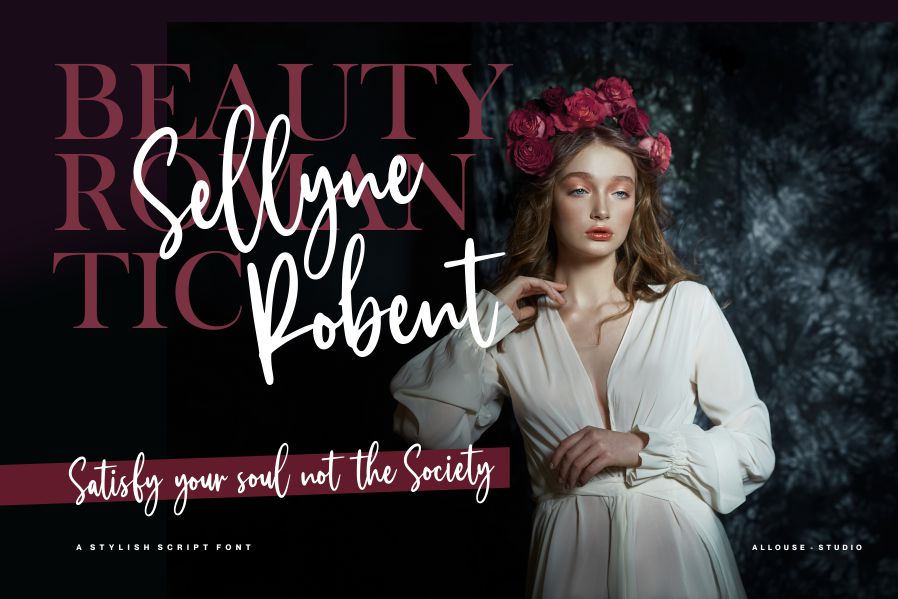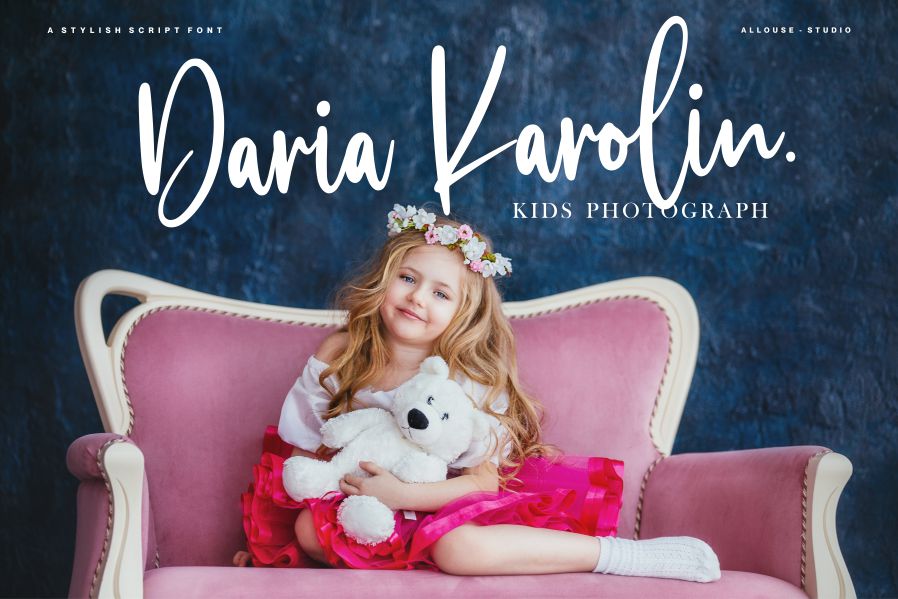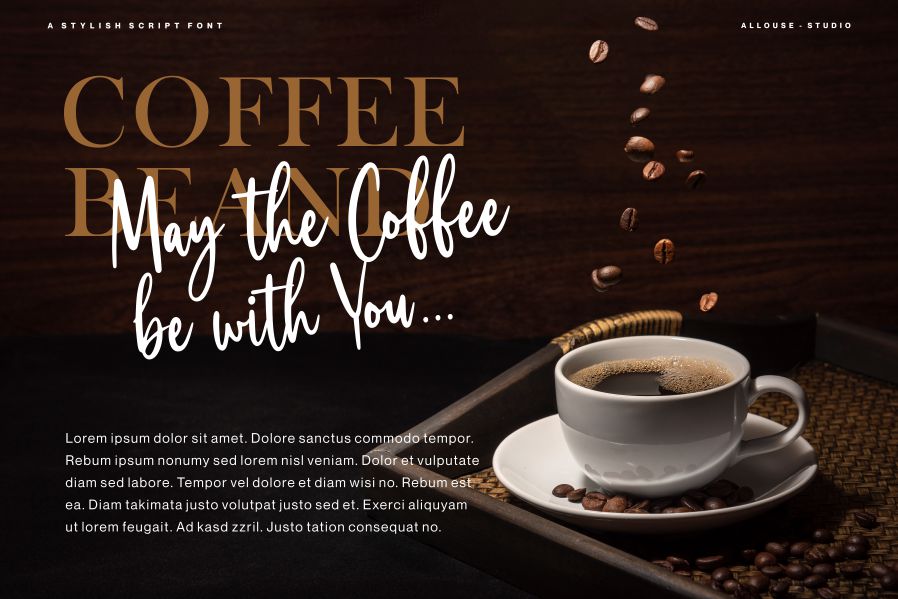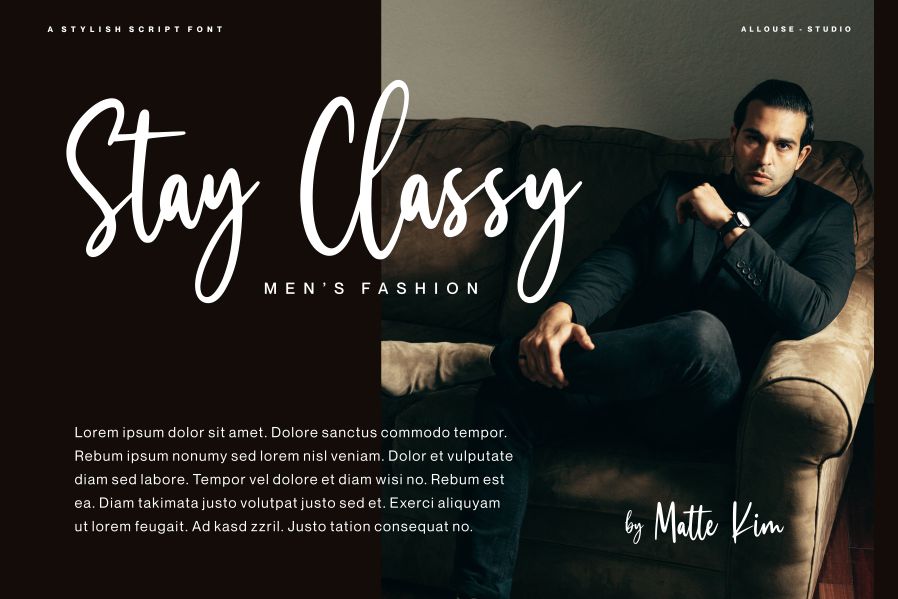
Billie Kimber Font
Billie Kimber Script Font
This is a stylish script font perfect for product packaging, branding projects, magazines, social media posts, weddings, or just used to express words above the background. Add it to each of your designs, and they will become true pieces of art!